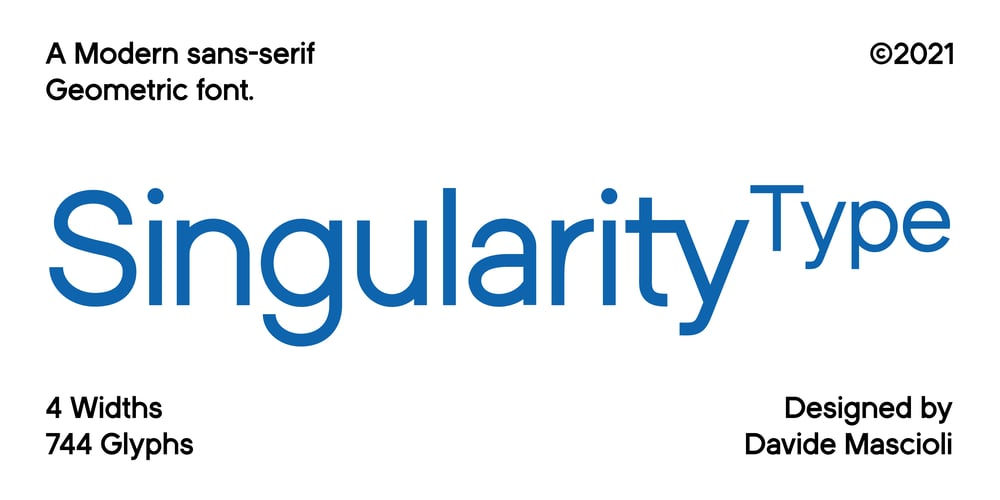
Singularity Type Font Family was designed by Davide Mascioli and published by Davide Mascioli. Singularity Type contains 4 styles and family package options. Singularity Type is a Modern sans-serif Geometric font with homogeneous thickness, based on essential geometric shapes.Built around 4 different widths, ranging from Extra Light up to Bold, the font contains 744 glyphs and supports more than 30 Latin alphabet languages.Singularity Type is Designed by Davide Mascioli ©2021